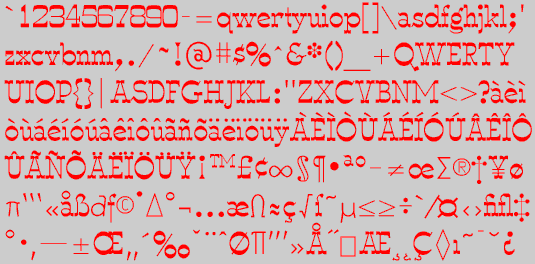
WyomingMacroni (Plain, Pegged, ShadowedRight, ShadowedLeft)
Typefaces with very thin verticals and fat, square serifs were popular in the 19th century for display. Hollywood helped associate this style with the Old West, but reference books identify some of it as Italian style. WyomingSpaghetti, which was the first of a series of faces, has a name which combines these two associations.
WyomingMacroni develops WyomingSpagetti by splitting the serifs, which was popular in the Nineteenth century. (See the discussion of Tuskcandy.) The Pegged version adds a horizontal spike through the middle of the stems, which has been a popular variation of this style. Finally, there are two versions which are shadowed. In them the letter is white on a black outline and shadow.